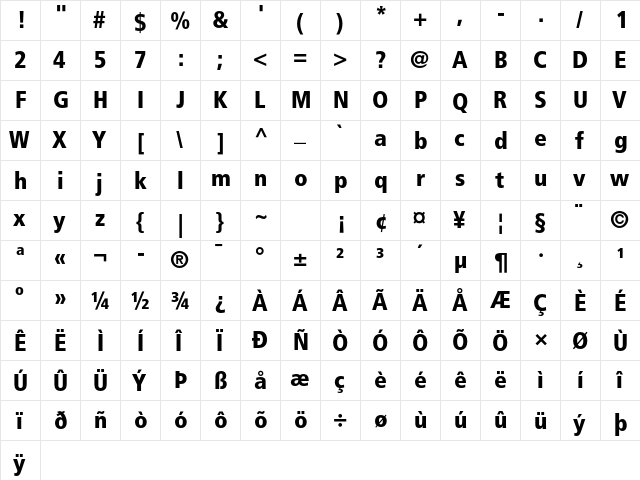
Frutiger LT Std 77 Black Condensed Font Preview
Frutiger LT Std 77 Black Condensed
Frutiger LT Std 77 Black Condensed Font Details
| Style | 77 Black Condensed |
| Designer | Adrian Frutiger |
Design Context for Frutiger LT Std Typeface
Frutiger LT Std offers clean, dependable letterforms without strong stylistic allegiance, making it a practical choice for designers who need flexibility. Its slender proportions lend an understated elegance to any composition. The condensed width makes it efficient for tight spaces without sacrificing legibility.